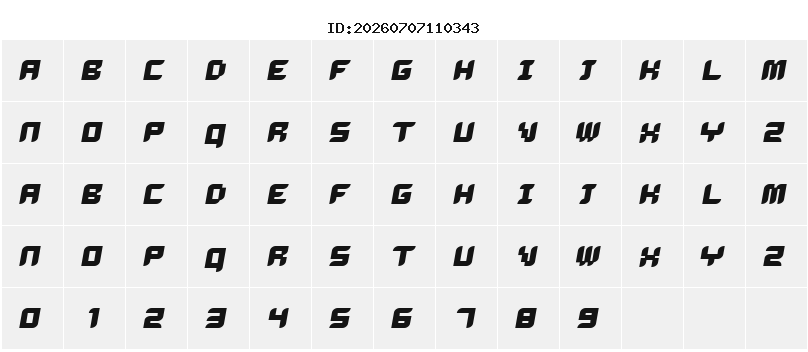
Delilah Preview
• Font Name: Delilah
• Font Style: BoldOblique
• Font ID: Meir Sadan Delilah Bold Oblique
• Full Font Name: Delilah BoldOblique
• Designer: Meir Sadan
• Manufacturer: Meir Sadan
• Description: This is a version of Samson. It has exactly all the weights Samson has, with a slight variation - it's kind-of "Aerodynamic", if I might brag about it. It has that aggressive "Darth Vader" look that I wonder if anyone would be interested in. Delilah was the girl who discovered Samson's secret source of power - his hair - seduced him, and cut his hair off while he slept. I guess Scissors are to Samson like Kriptonite is to Superman!